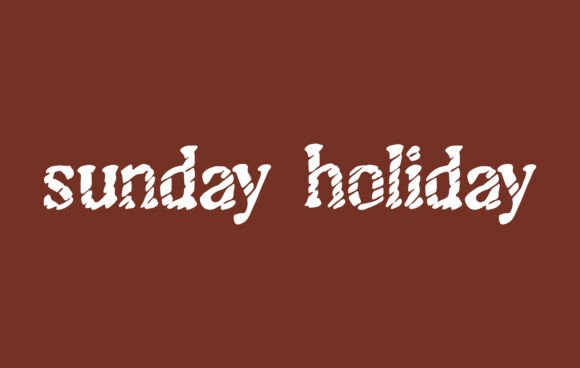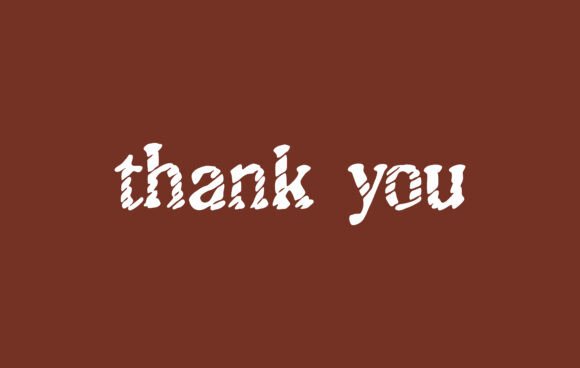
Introduction to Graphika Font
Graphika is a bold textured font with a dynamic, chiseled appearance that gives designs a hand-crafted and edgy vibe.
Ideal for grunge posters, gaming graphics, or street-style branding, itโs made to stand out with impact .